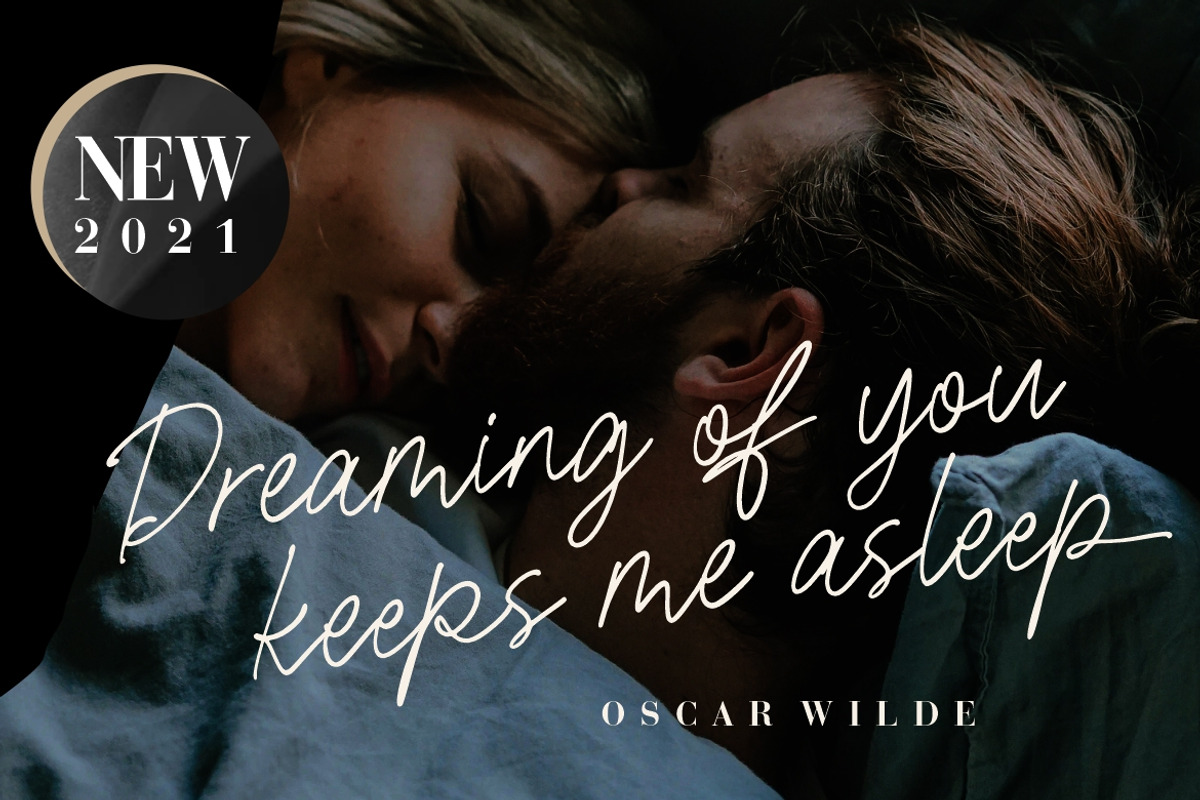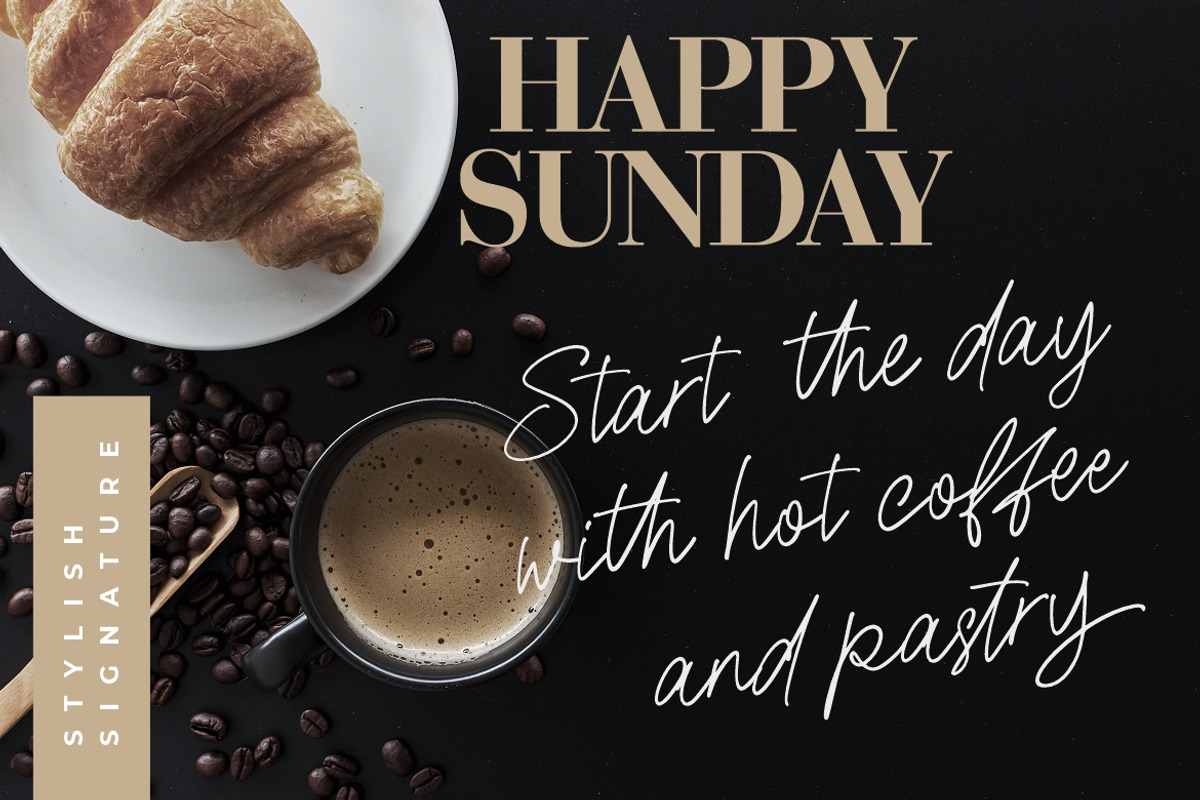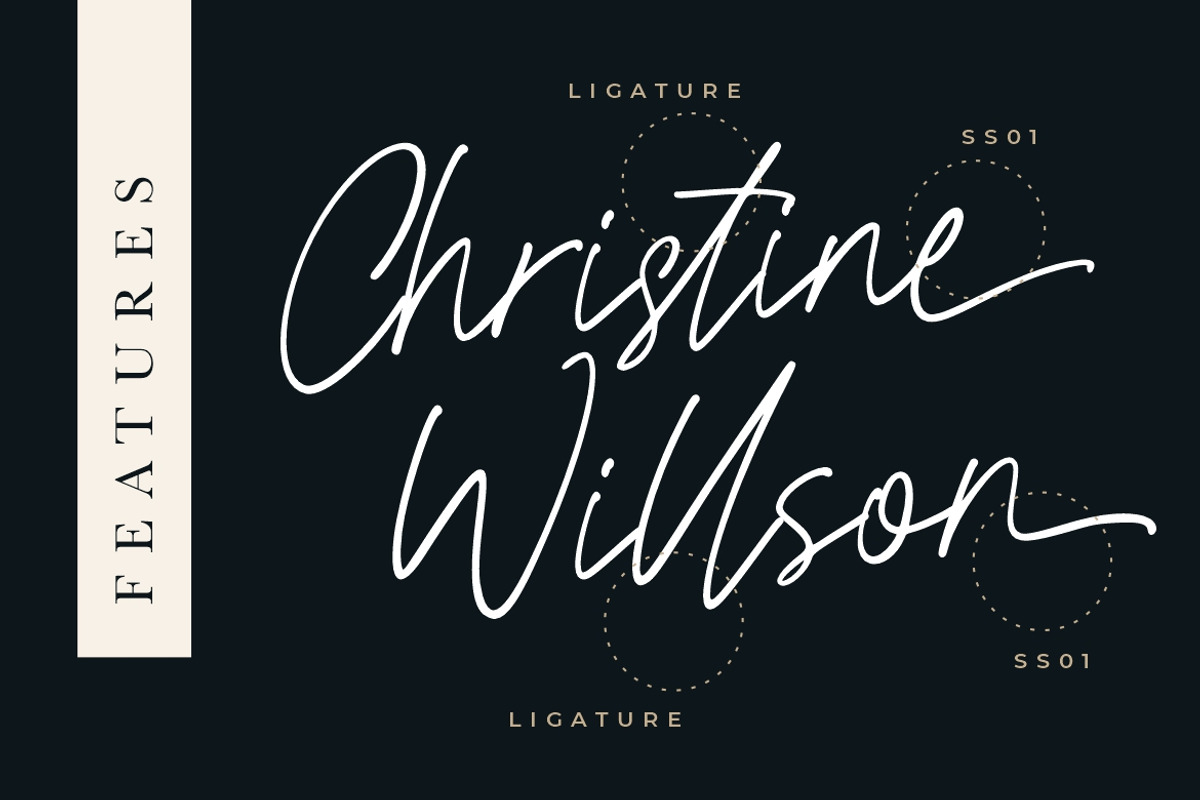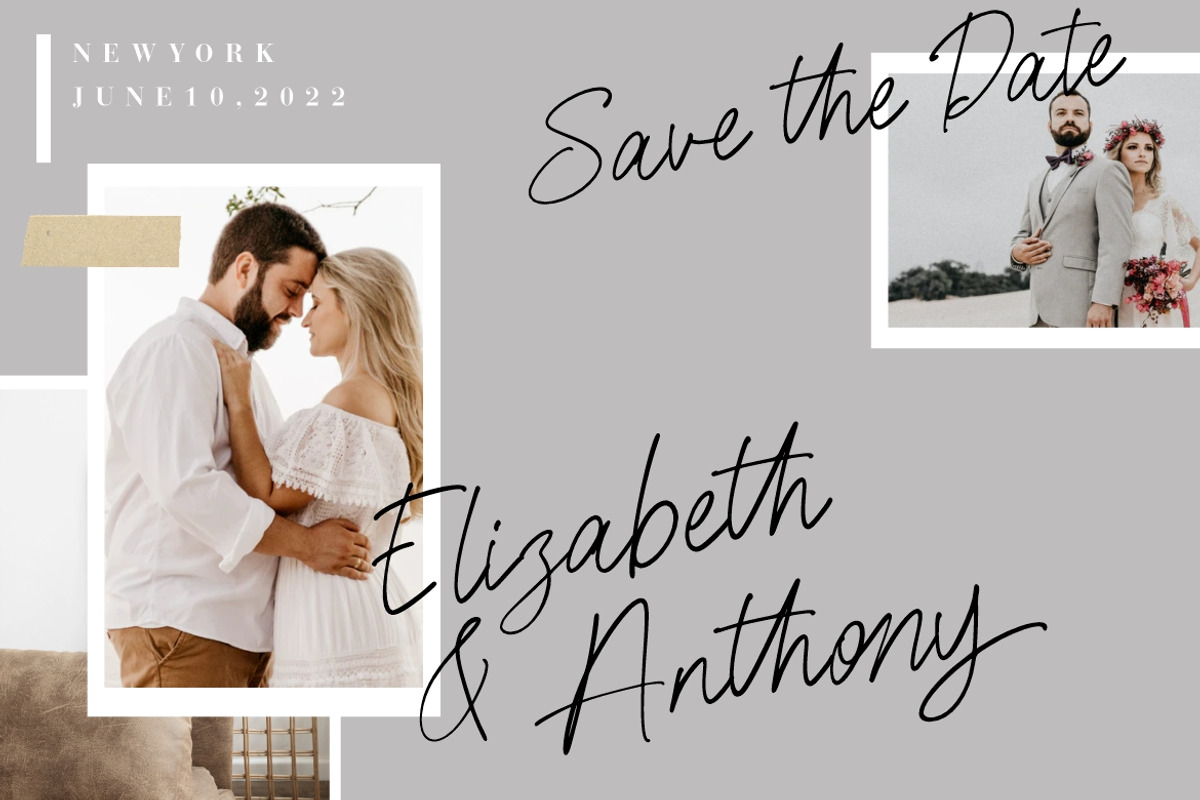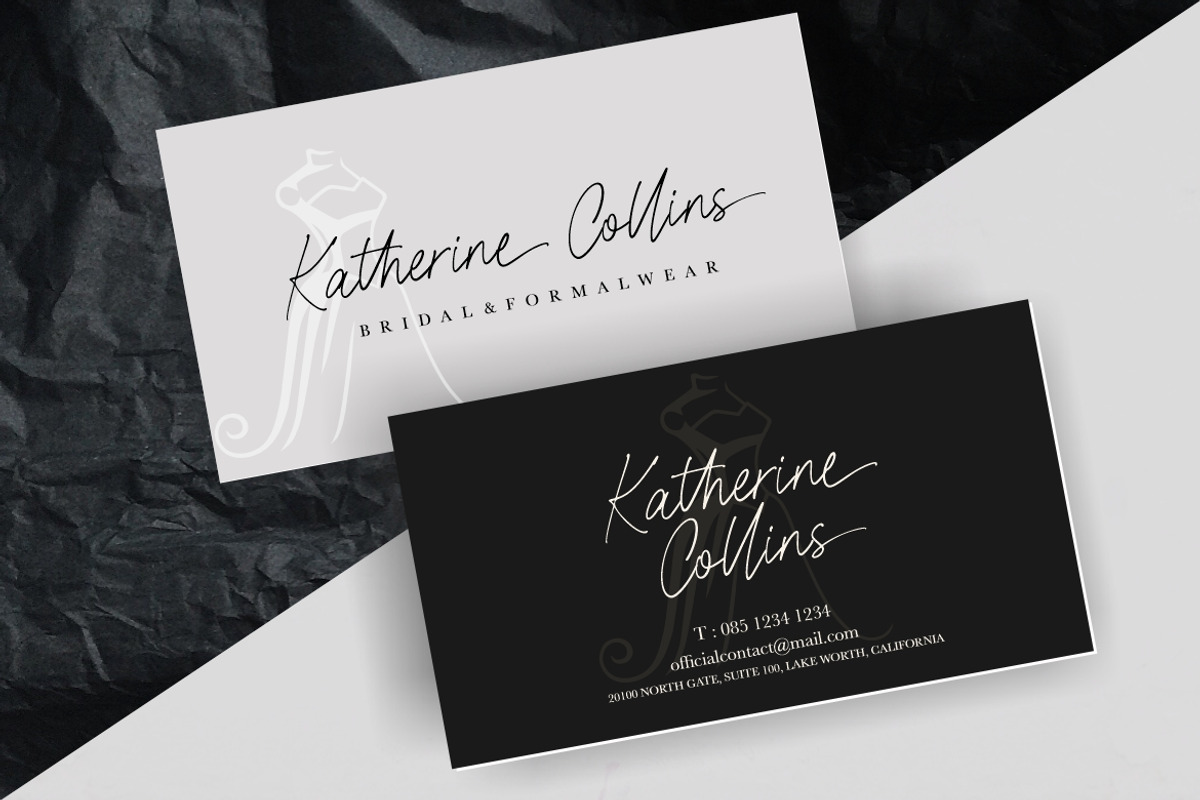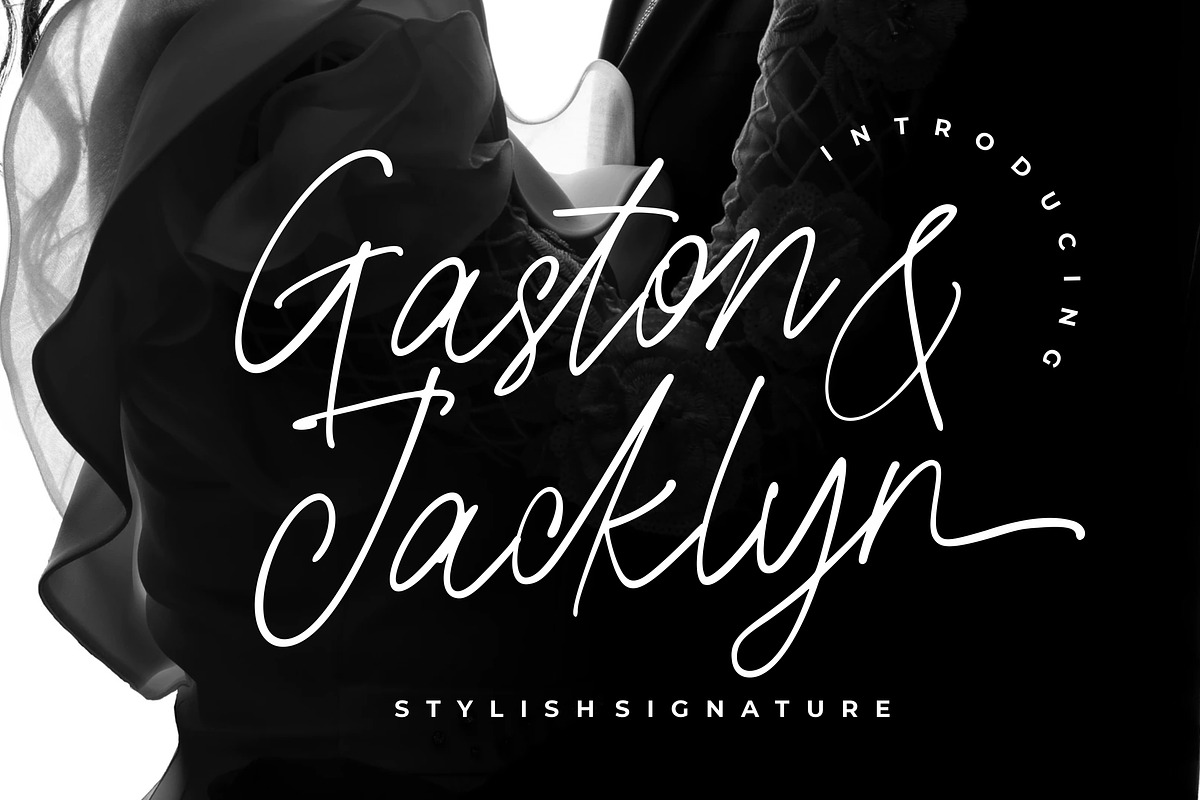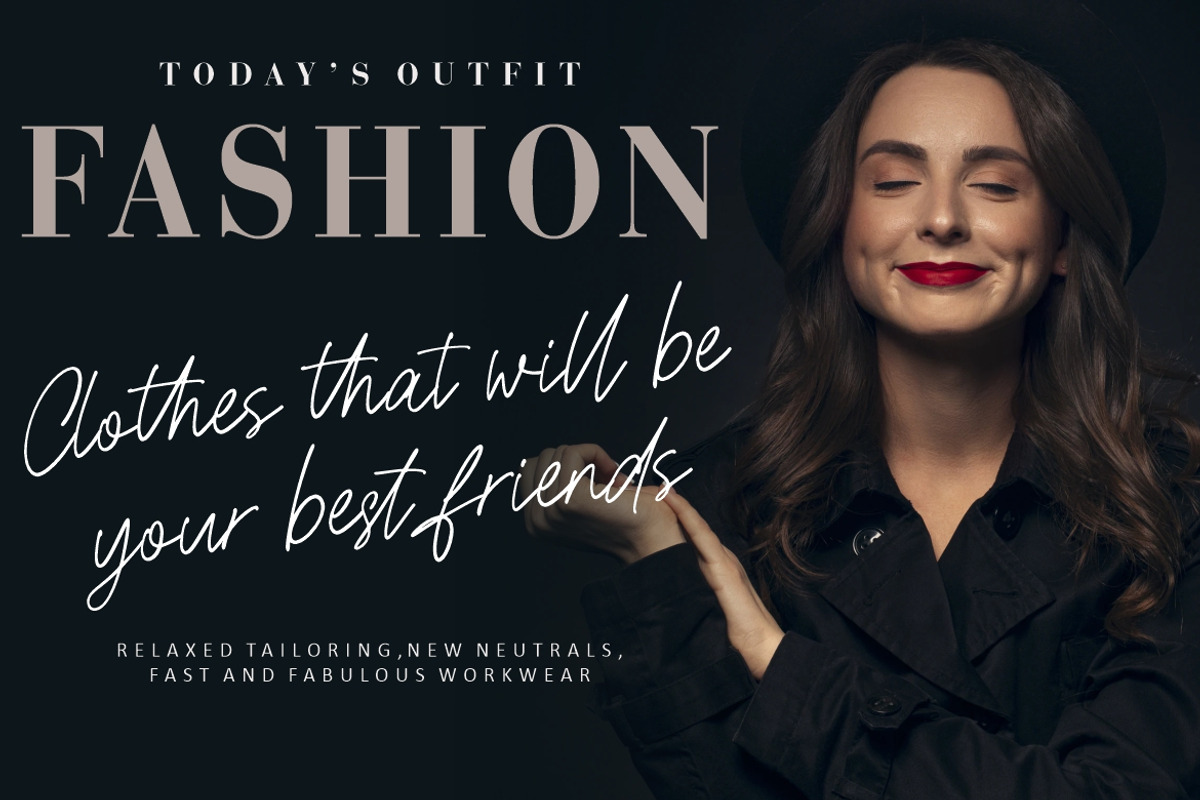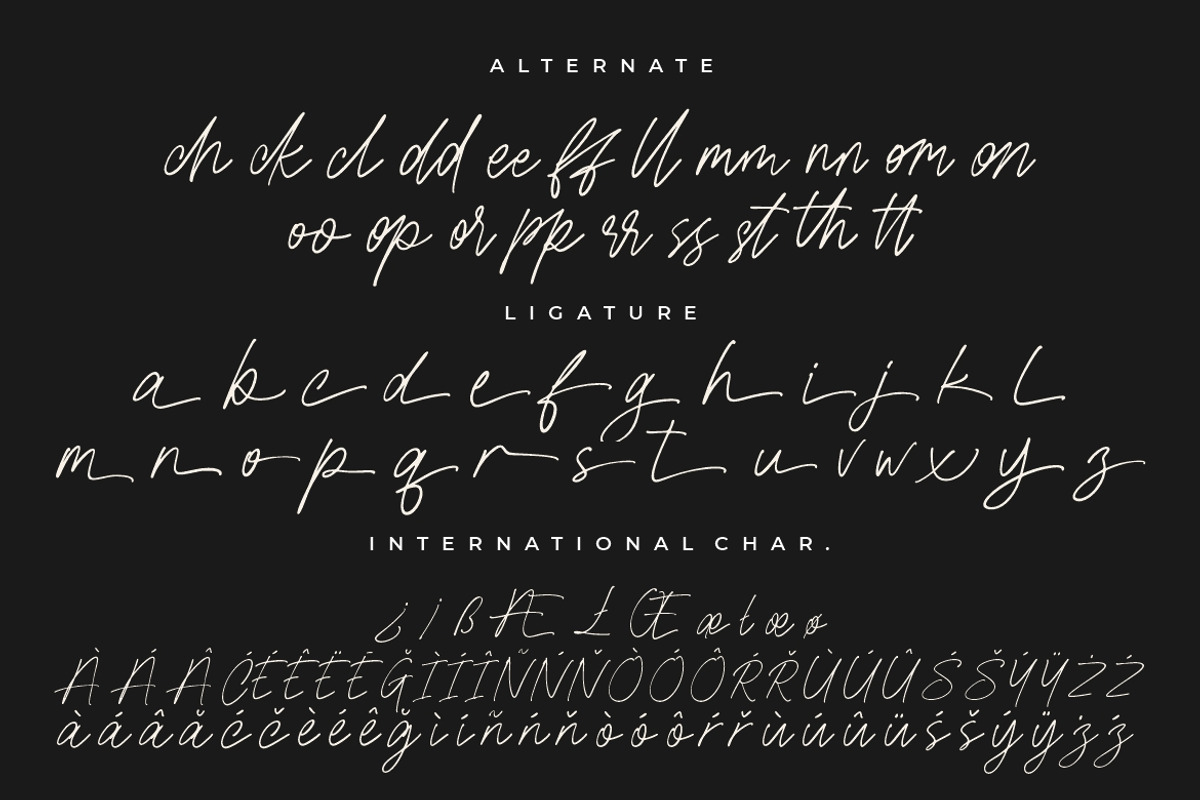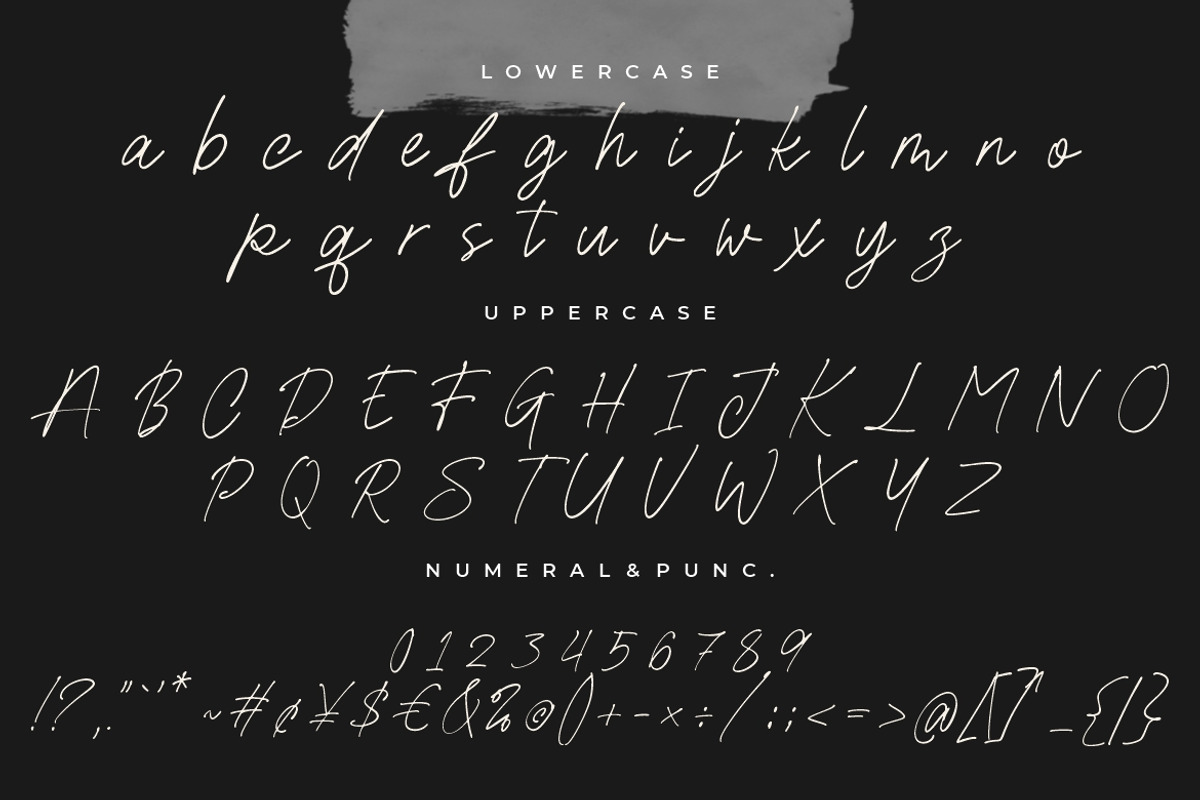
Gaston & Jacklyn Stylish Signature
Gaston & Jacklyn is a stylish signature font that looks very elegant and classy.
Gaston & Jacklyn is perfect for branding projects, logo, wedding designs, social media posts, advertisements, product packaging, product designs, label, photography, watermark, invitation, stationery and any projects that need handwriting taste.
- Ligature & Alternate